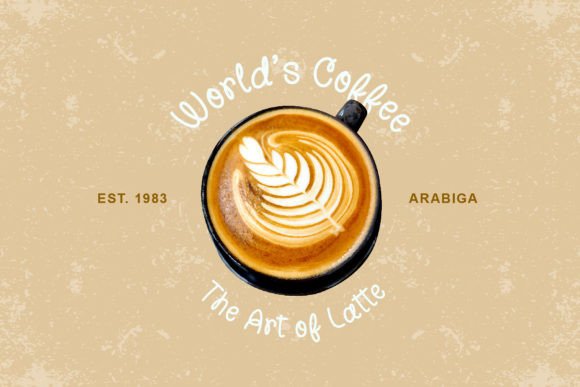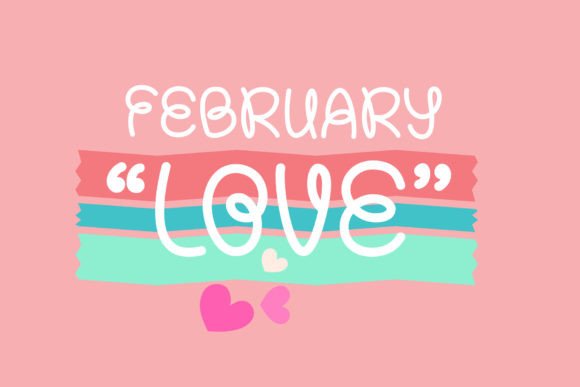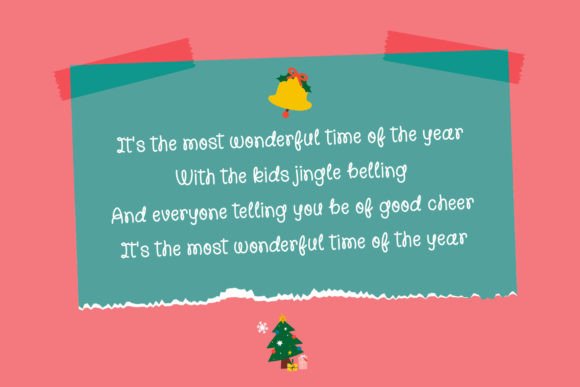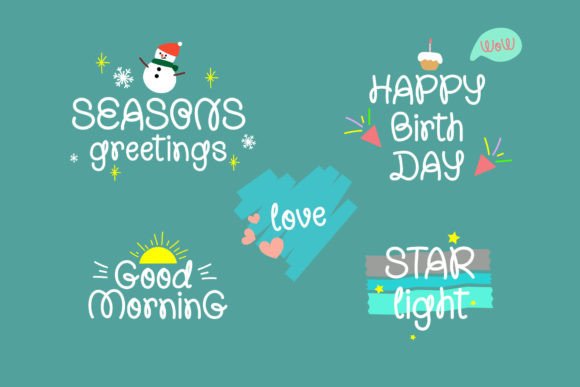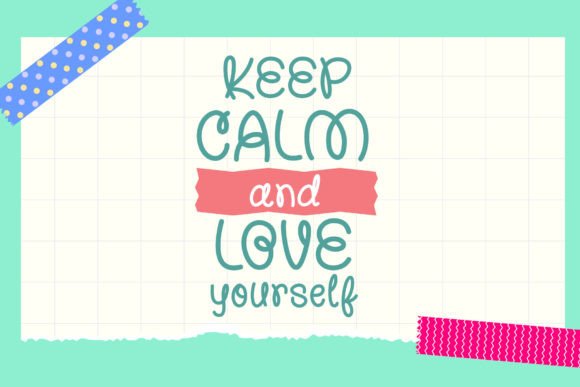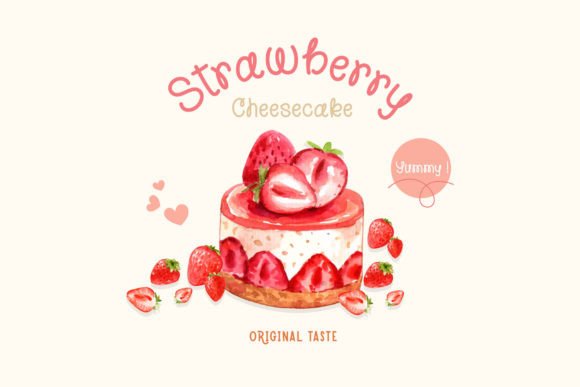
The Joy of Typography: Discovering Enjoy World Font
I’ll never forget the moment I stumbled upon the perfect font for a project. I was working on a whimsical branding campaign for a new eco-friendly product line, and my designer brain was racing to find the ideal typeface. That’s when I met Enjoy World, a sweet and friendly handwritten font that instantly captured the playful essence of the brand. Its natural and unique style made it incredibly fitting for a wide range of designs, and I knew right then that I had to share it with fellow creatives.
So, what makes Enjoy World font so special? Here are a few things that I absolutely adore:
• Unique yet approachable: Enjoy World strikes the perfect balance between being distinctive and friendly.
• Versatile: This font can effortlessly adapt to various design contexts, from branding and packaging to digital media and print.
• 💫 Easy on the eyes: The font’s gentle curves and flowing lines make it a joy to read, even in smaller sizes.
Of course, no font is perfect, and there are a few minor quirks to consider:
• 🤔 Limited formal variations: Enjoy World is primarily a single-style font, which might limit its use in projects requiring multiple weights or styles.
• ⚠️ Glyph coverage: While the font covers a wide range of languages, some users might find the glyph set not extensive enough for very specific requirements.
The Story Behind Enjoy World
Enjoy World was crafted with the goal of creating a friendly, approachable typeface that could bring joy to various design projects. Its creator aimed to capture the essence of handwritten typography while making it versatile and easy to use. The result is a font that feels both personal and professional.
Q: What makes Enjoy World font unique?
A: Enjoy World stands out due to its natural, handwritten style that feels both unique and approachable.
Q: Does Enjoy World support OpenType features?
A: Yes, Enjoy World offers various OpenType features, including ligatures and stylistic alternates, to enhance your typography.
Q: Is Enjoy World suitable for body text?
A: While Enjoy World is primarily designed for display and headline use, its readability makes it suitable for short paragraphs of body text.